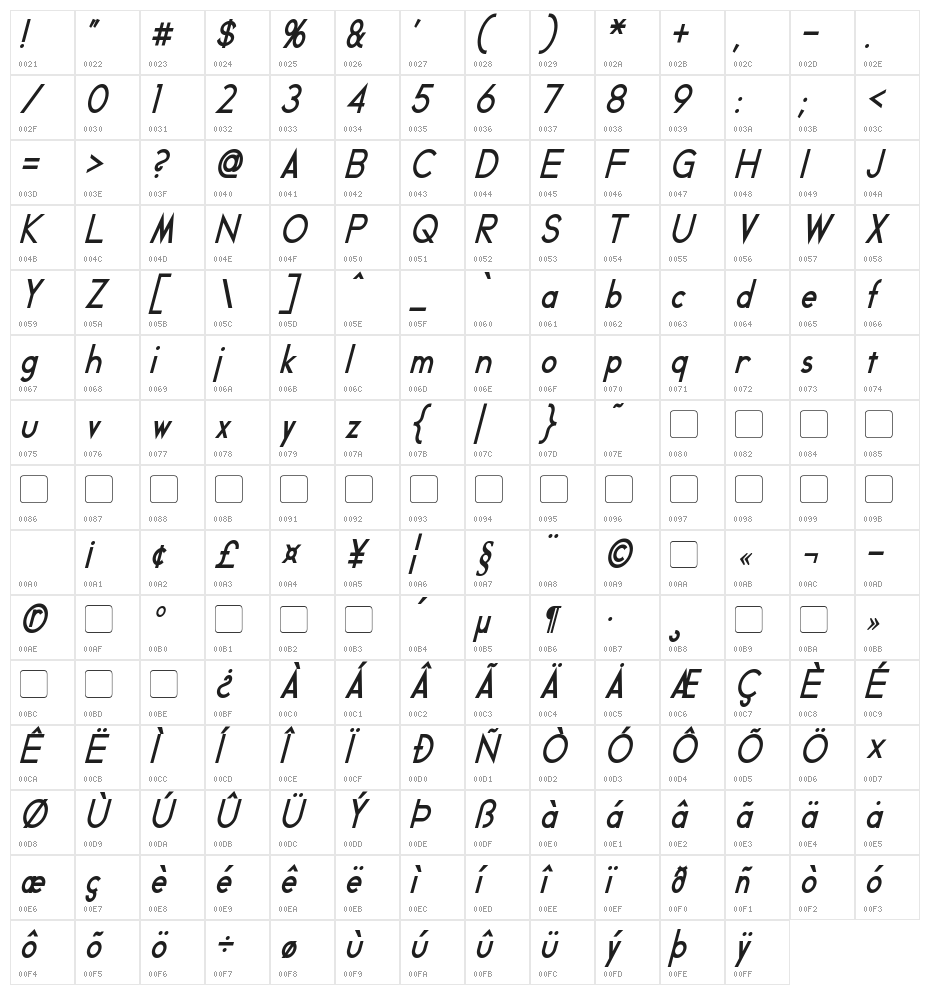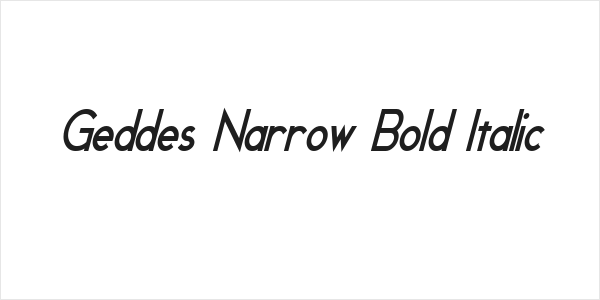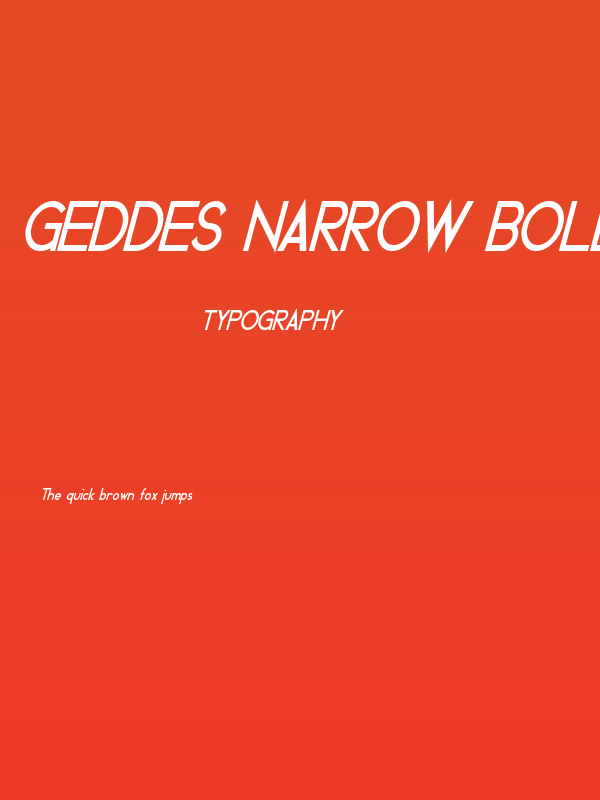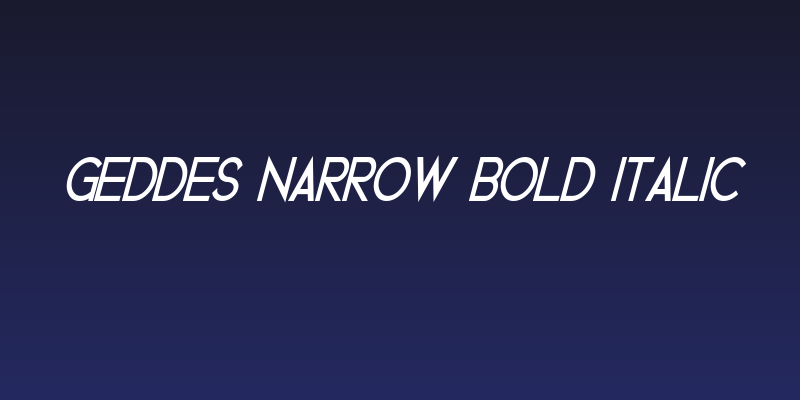
Geddes Narrow Bold Italic Font
Geddes Narrow Bold Italic Description
This font exhibits a bold and italicized style with a narrow width, creating a sleek and modern appearance. The uppercase and lowercase letters are designed with a consistent slant, enhancing the italic effect. The numerals and special characters maintain the same stylistic approach, ensuring uniformity across all glyphs. The strokes are thick, contributing to the boldness, while the narrow design allows for efficient use of space. This combination of features makes it suitable for impactful headlines and titles where a modern and dynamic look is desired.
| Proposed Projects | Ideal for modern branding, dynamic headlines, advertising, and editorial design. |